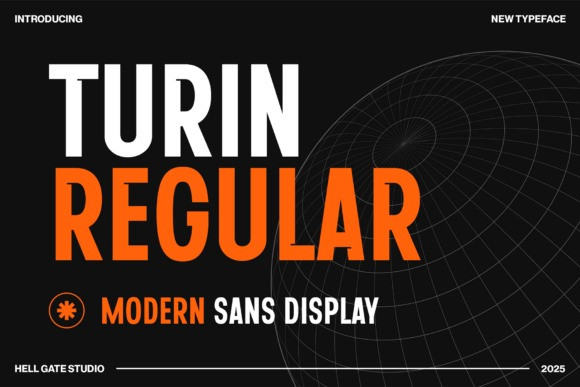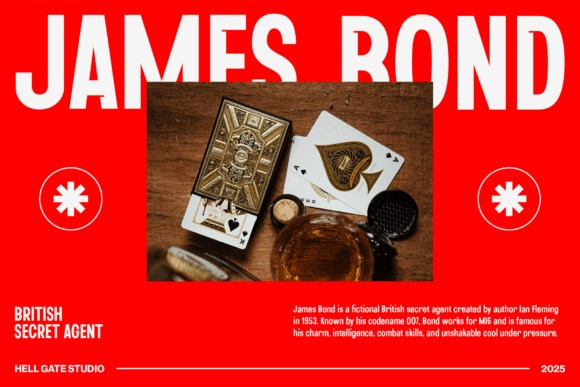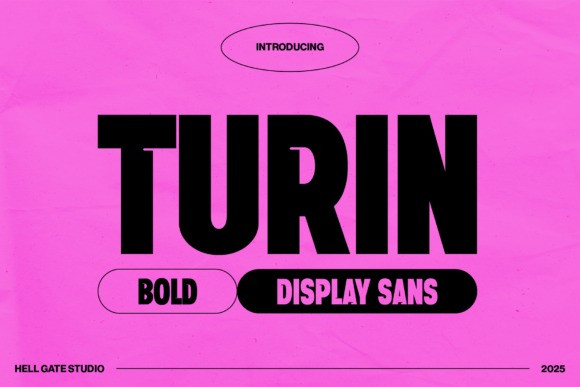
Turin Font
Turin Font: Immerse yourself in the robust elegance of the Turin Bold Display Sans font. With its commanding presence, it’s a fitting choice for designs that resonate with sophistication and strength.
Seemingly crafted to enhance chic, bold themes, Turin Display Sans Font is effortless to manipulate, empowering you to seamlessly adjust both text and color with slick ease. What truly sets this font apart is its high-quality render, ensuring your designs are showcased in the best possible light.